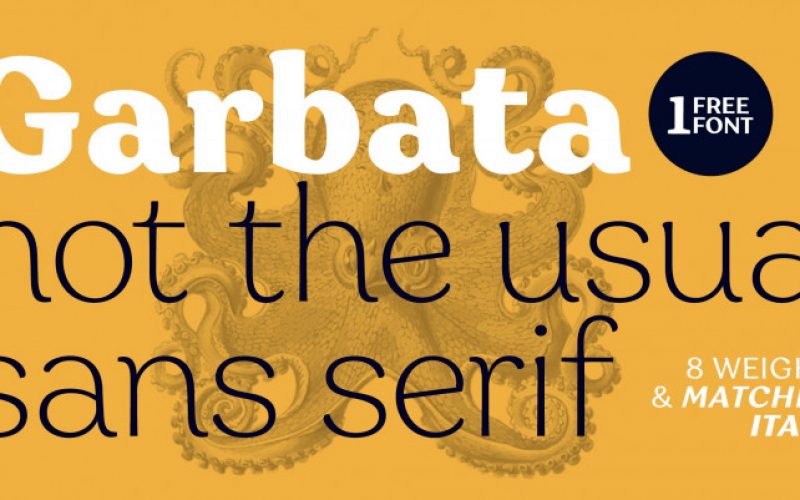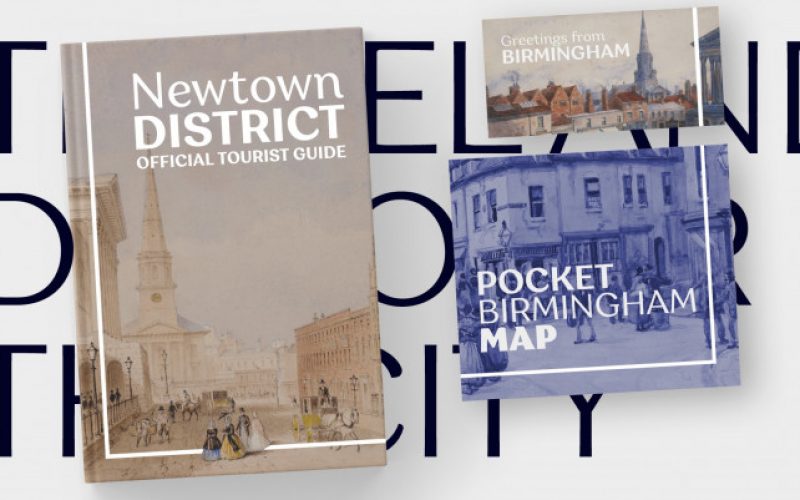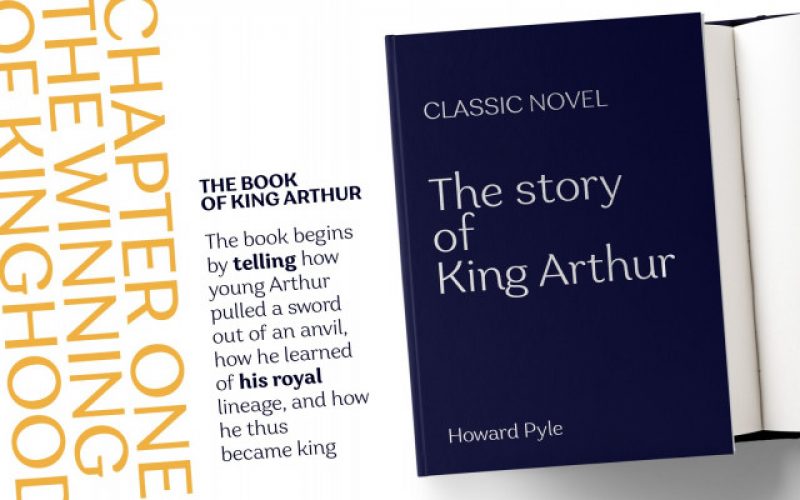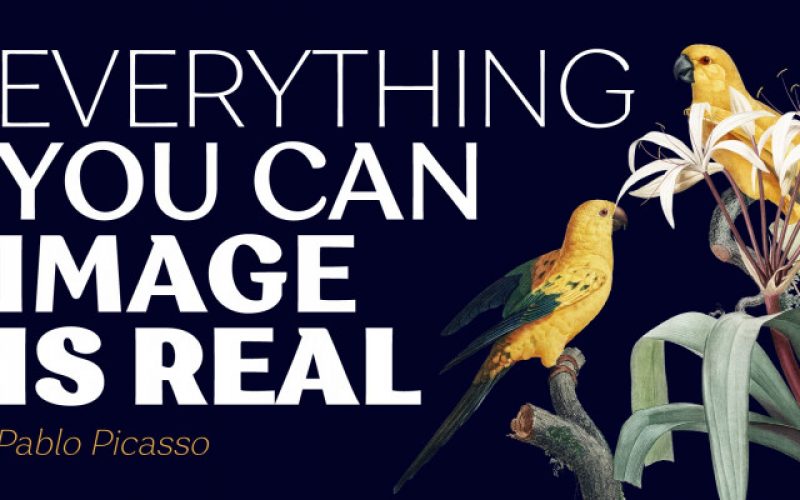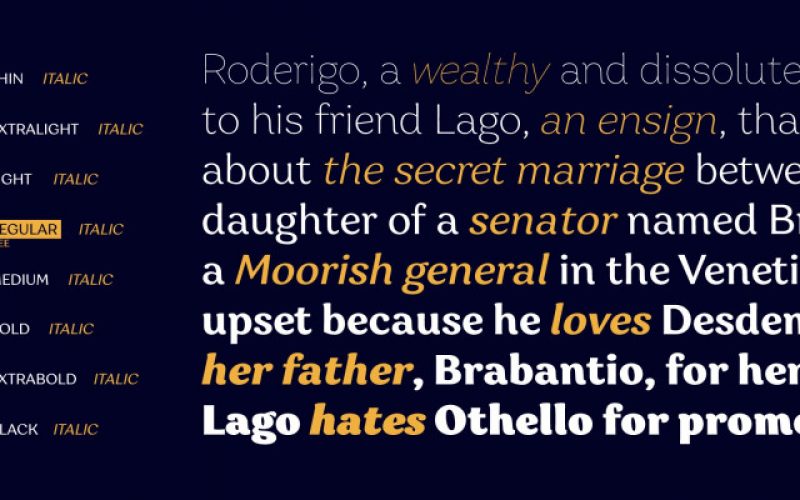
Garbata Sans Serif Font
Garbata was designed in 2020 by Francesco Canovaro, looking for an approach to sans serif design that ignored the over-exploited grotesque and modernist models. It takes its skeleton from old style typefaces like Windsor or Cooper, keeping the quirky sloped shapes of some letters and adding to the historical smooth shapes a flat brush calligraphic sensibility. The result of these different historical influences is a humble yet distinctive sans serif typeface, developed in a wide range of weights, with finely-tuned differences between the medium, text-oriented SHOW ALL
Classification: | Basic, Sans Serif |